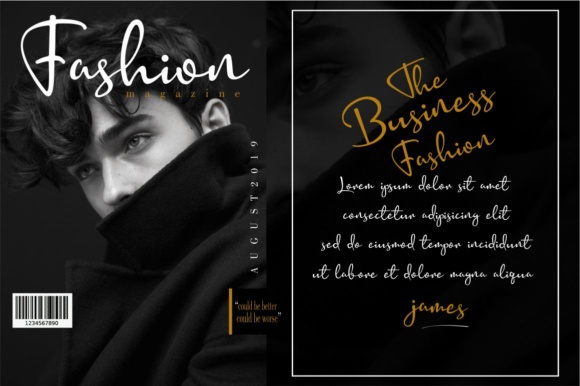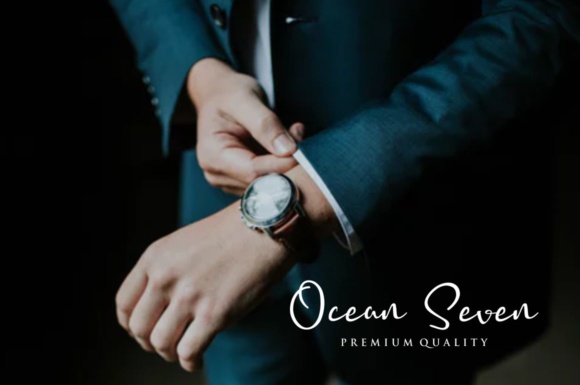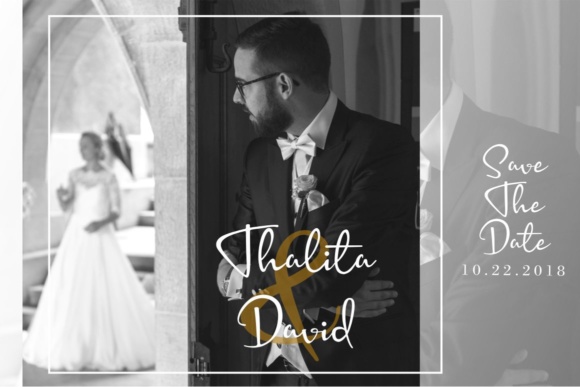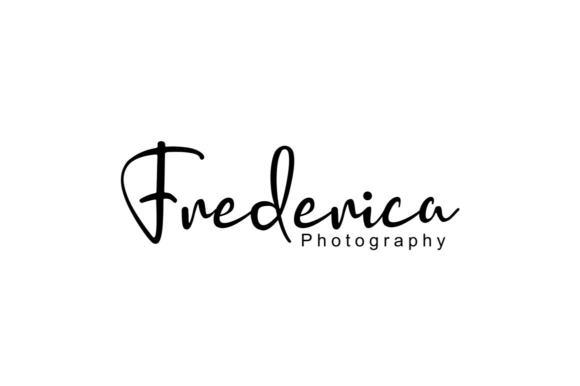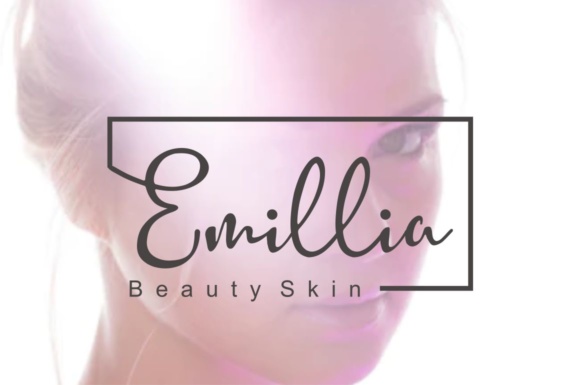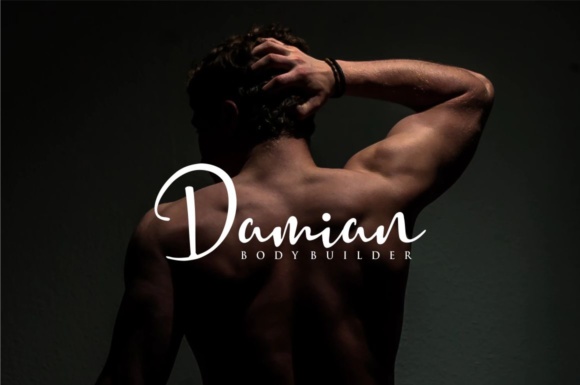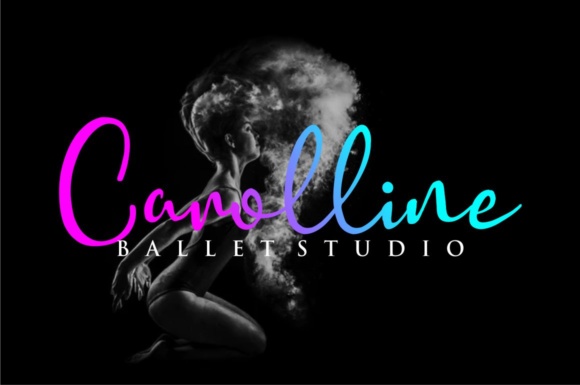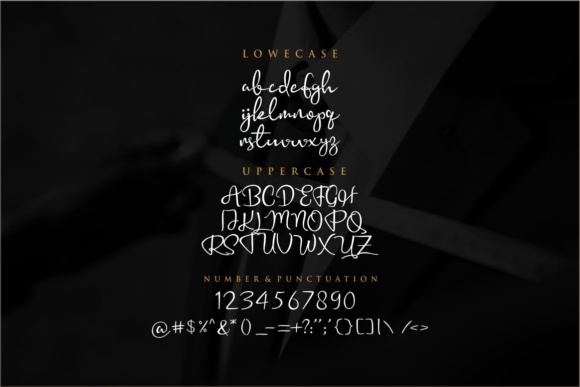
Bridgetown Font
About Bridgetown Font
The Bridgetown is a beautiful signature font by typelines studio. It has been carefully crafted to give your design an elegant feel. Its signature style makes it perfect for logos, posters, branding and much more!